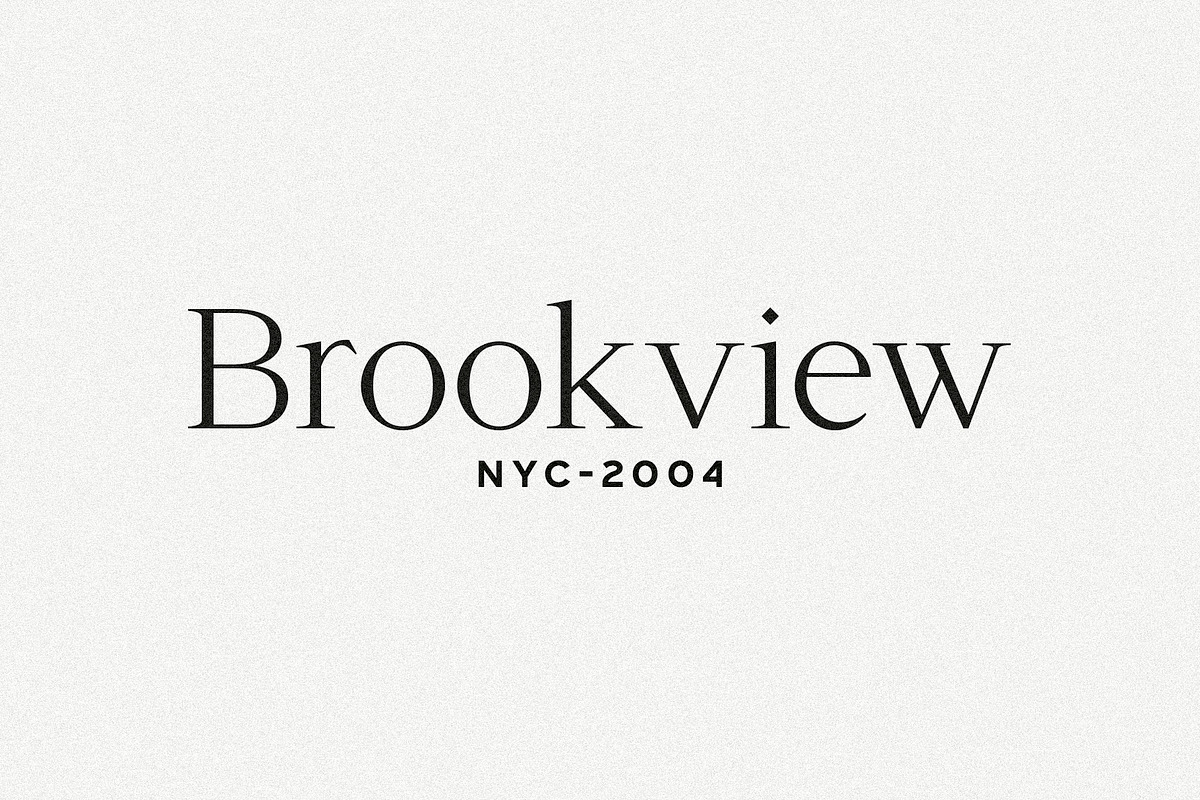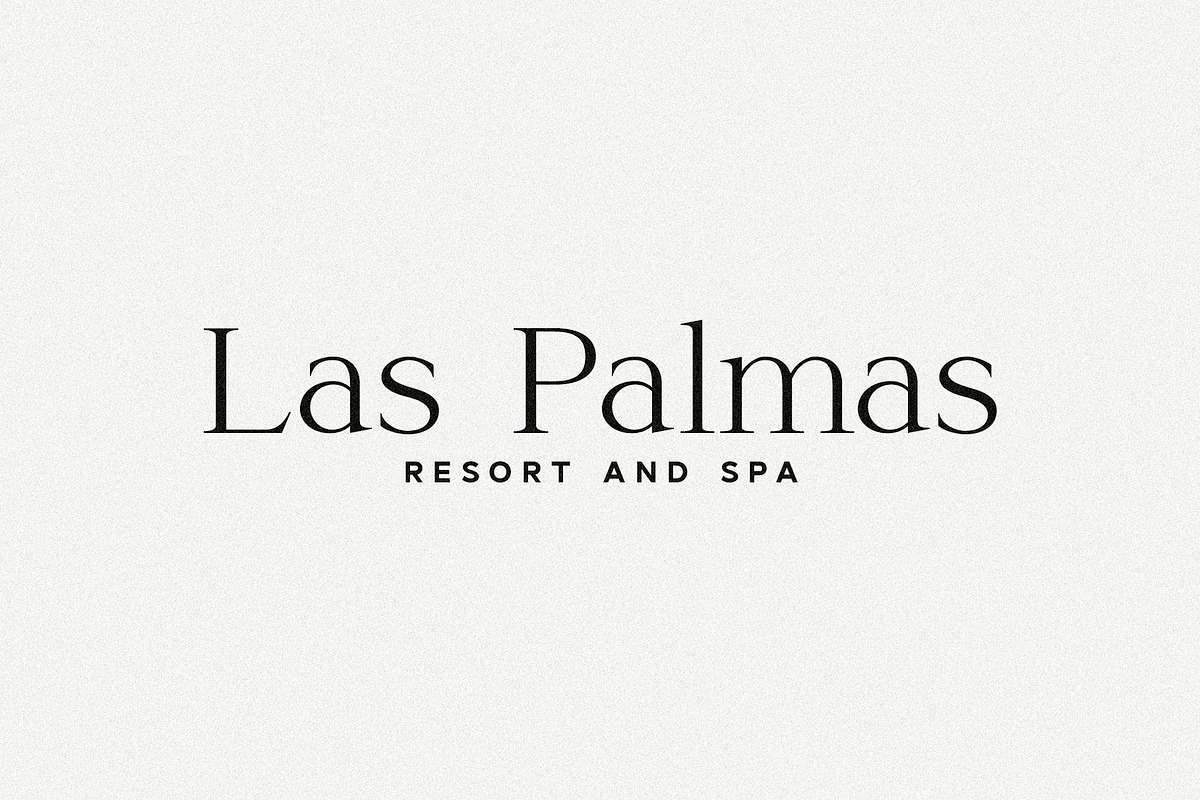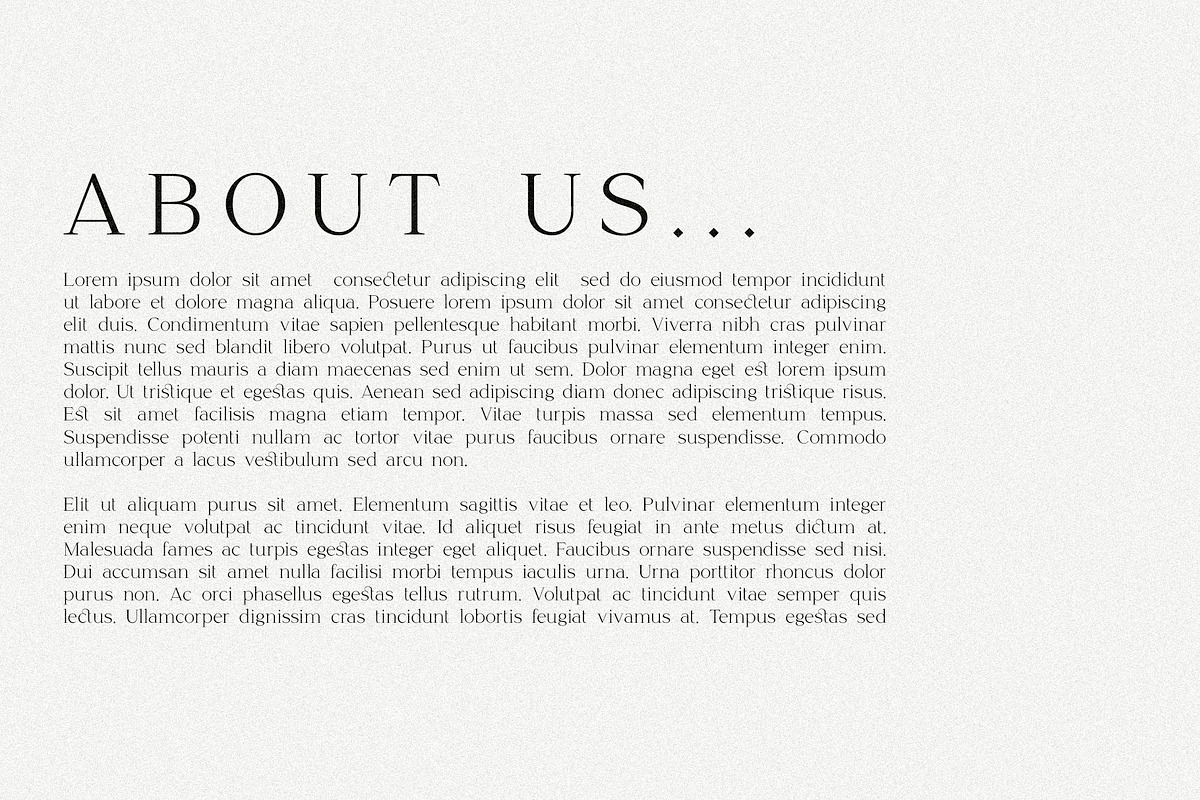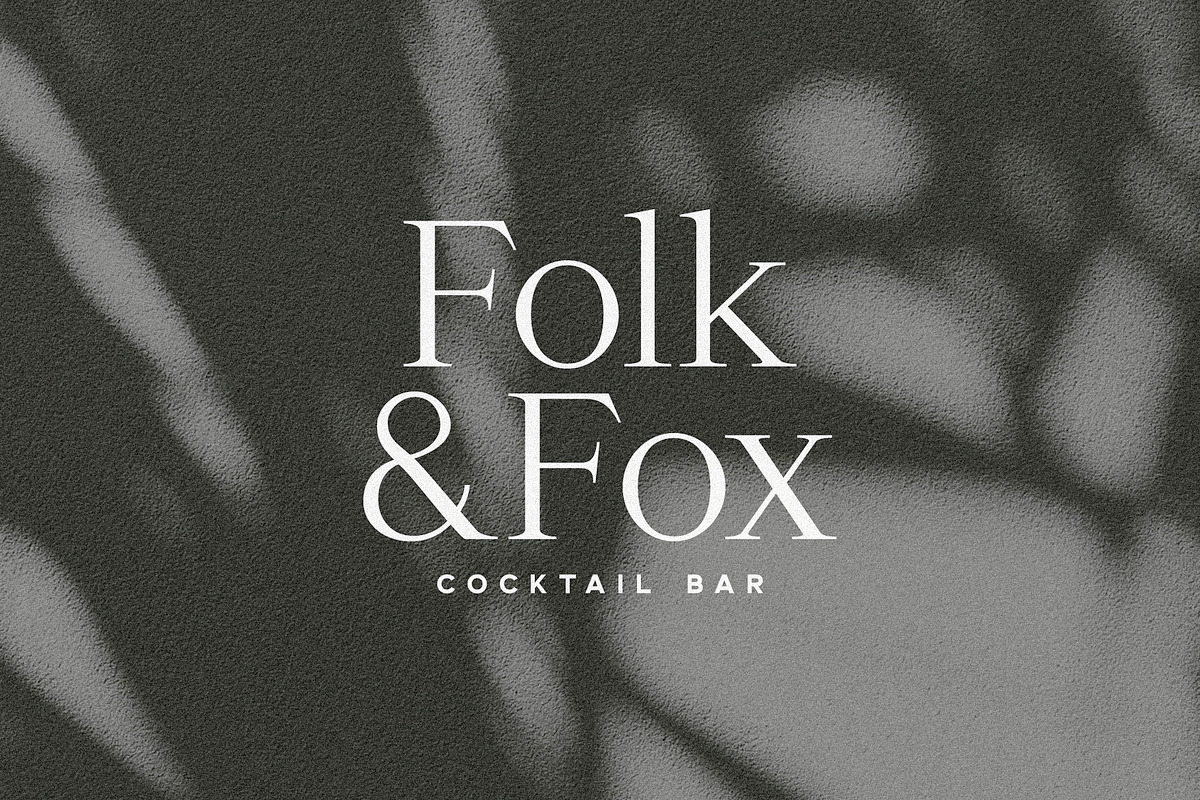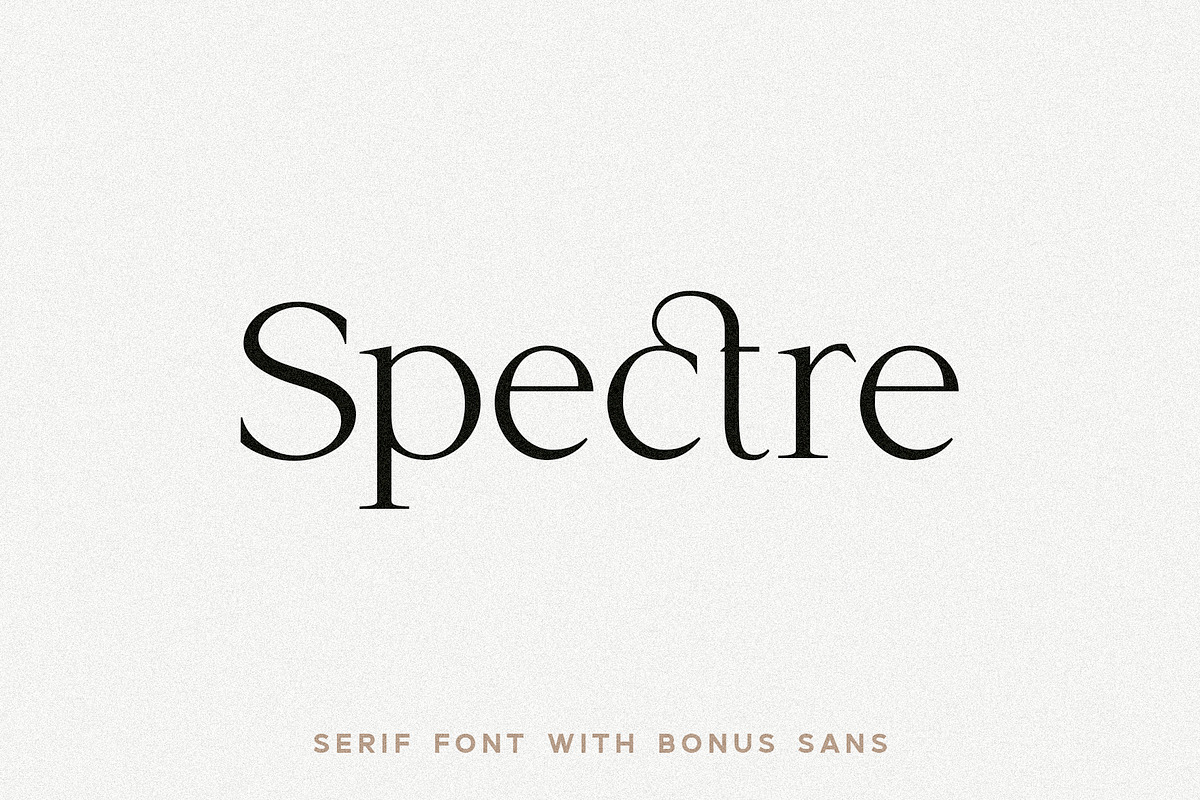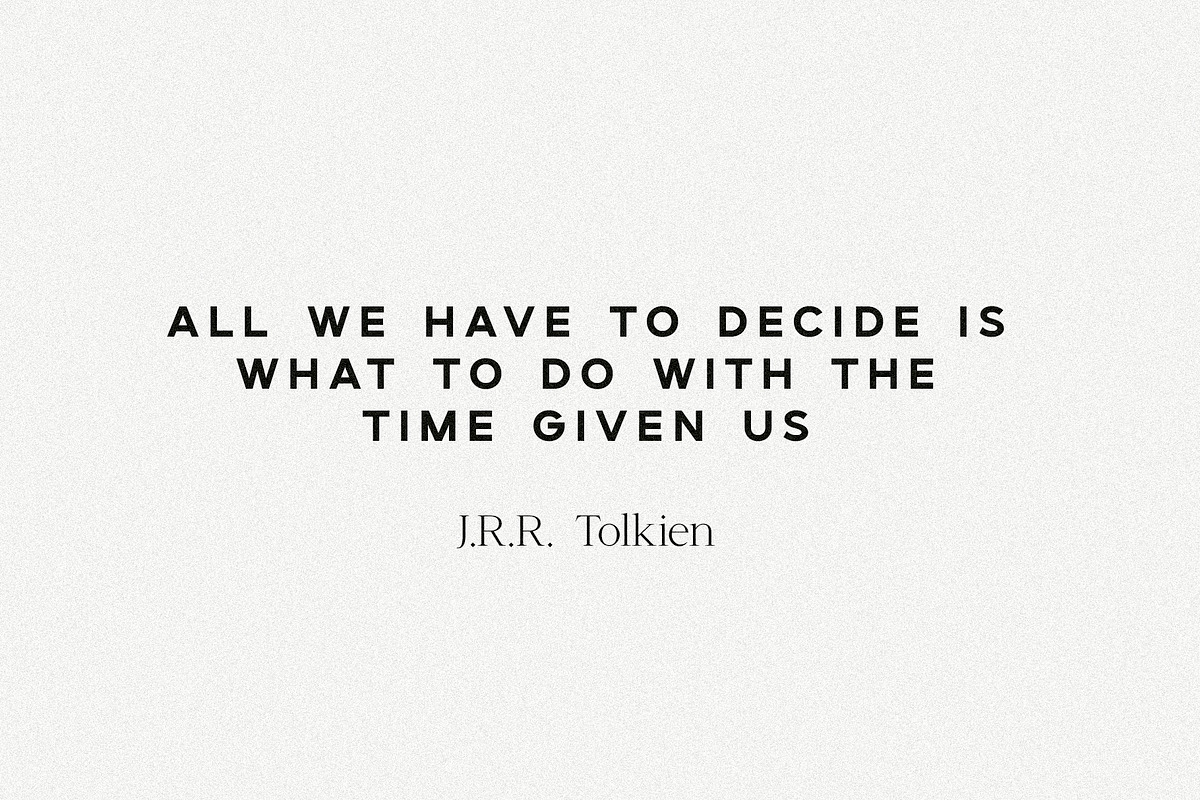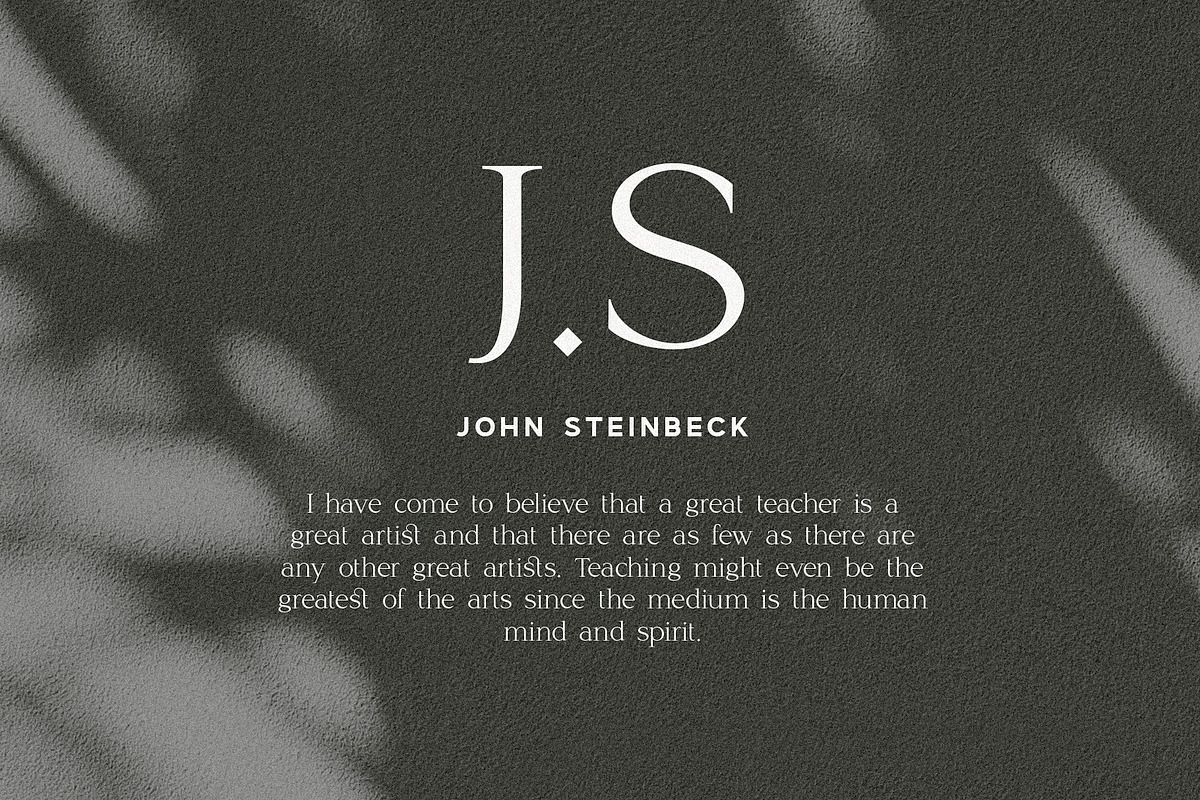
Spectre Font Duo Sans & Serif
Spectre is a gorgeous new serif & sans font duo made to perfectly complement one another.
Classic curves and crisp serifs make Spectre Serif feel modern and nostalgic, all at once, while still leaving enough simplicity to use for both headings and body type. It also comes with four special ligatures (ct, st, fi, & fl) that give body text extra flair and readability, and I can't help but work them into any logos I possibly can!
Spectre Sans, on the other hand, is a simple yet beautiful all-caps font designed to perfectly contrast the serif.
Spectre Serif Includes:
Uppercase & Lowercase letters
Foreign Language Capability
Spectre Sans Includes:
Foreign Language Capability